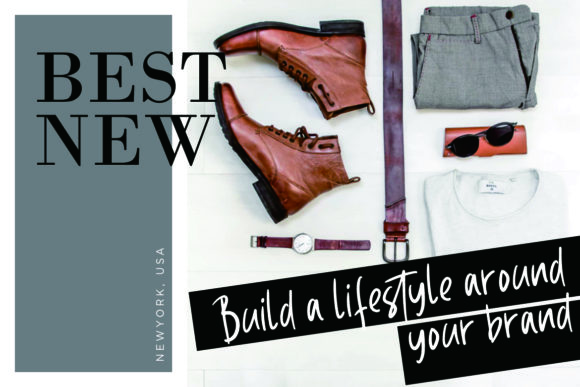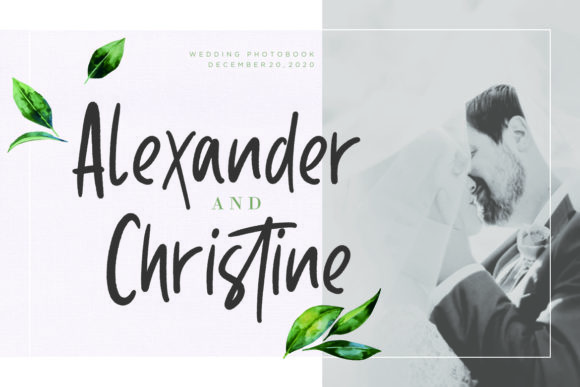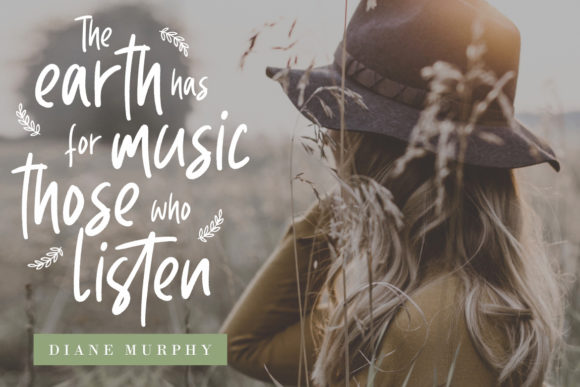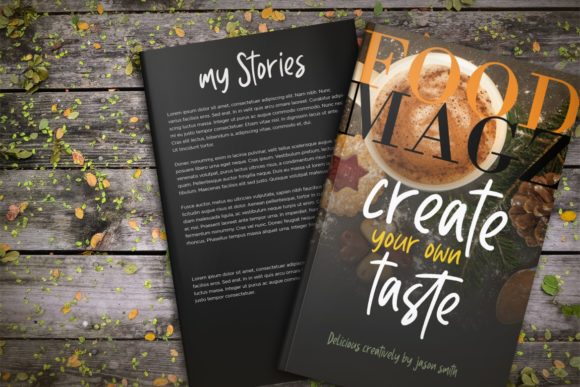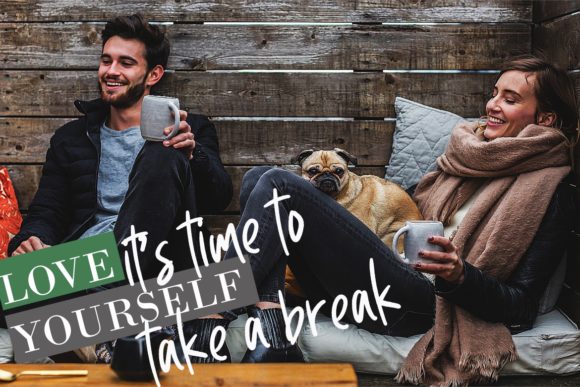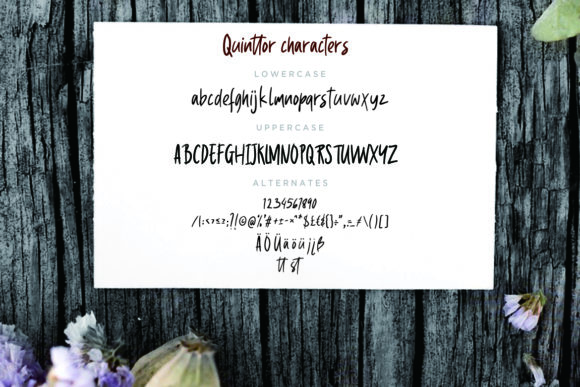
Discovering the Quinttor Font
As a designer, there’s nothing quite like the thrill of stumbling upon the perfect font for your creative project. It’s that moment when everything falls into place, and your vision starts to take shape. For me, it was the day I discovered the Quinttor Font – a hand-lettered condensed sans serif font with a unique brush style that adds an extra layer of character to any design.
With its modern charm and high-quality design, the Quinttor Font is a valuable resource for designers looking to add a touch of personality to their work. Whether you’re working on a branding project, creating a social media graphic, or designing a website, this font is sure to inspire. Plus, with a transparent background and free download option, you can easily incorporate it into your design without any hassle.
Key Features of Quinttor Font
- High-quality design for creative projects: The Quinttor Font is designed to provide a professional touch to your creative projects, making it an ideal choice for designers and artists.
- Unique, modern design: The Quinttor Font features a unique and modern design, making it an excellent choice for designers looking for a fresh and creative look.
Honest Review: Quinttor Font
I recently had the opportunity to work with the Quinttor Font, and I must say, it’s been a great addition to my design toolkit. This free download has been a game-changer for my creative projects, offering a high quality and versatile font that’s perfect for a variety of applications.
- ✨ Clean and modern design aesthetic that’s perfect for contemporary branding
- ✨ High quality characters and glyphs that are crisp and clear
- ⚠️ Limited font styles and weights, which may not be ideal for complex design projects
Overall, I’m thoroughly impressed with the Quinttor Font. It’s a fantastic design resource that’s perfect for personal projects, student work, or small-scale design initiatives. While it may not be suitable for large-scale commercial use, it’s a great addition to any designer’s toolkit.
Quinttor Font
The Quinttor Font is perfect for:
Designing logos and branding materials.
Creating presentations and slides.
Adding text to images and graphics.